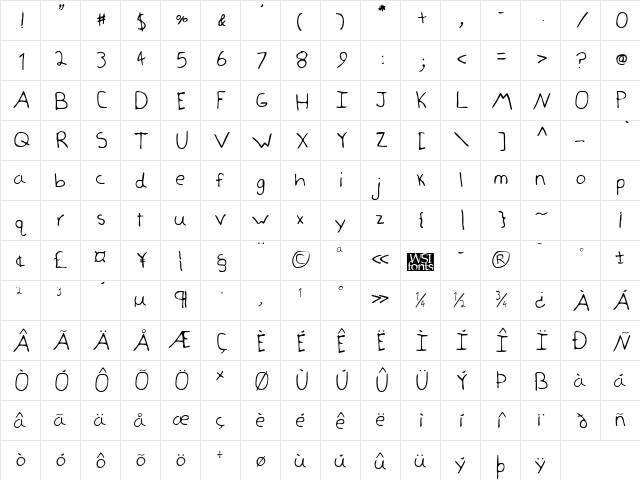
AmbersHand Regular
Design Context for AmbersHand Typeface
AmbersHand flows with the natural rhythm of handwritten lettering, making it ideal for designs that call for warmth and personal expression.
Font Pairing: Combine AmbersHand with a simple geometric sans for maximum contrast — the tension between flowing curves and clean structure is a classic typographic pairing.
Pro Tip: Pair AmbersHand with a clean sans-serif for supporting text. The contrast between fluid script and geometric structure creates an elegant typographic hierarchy.